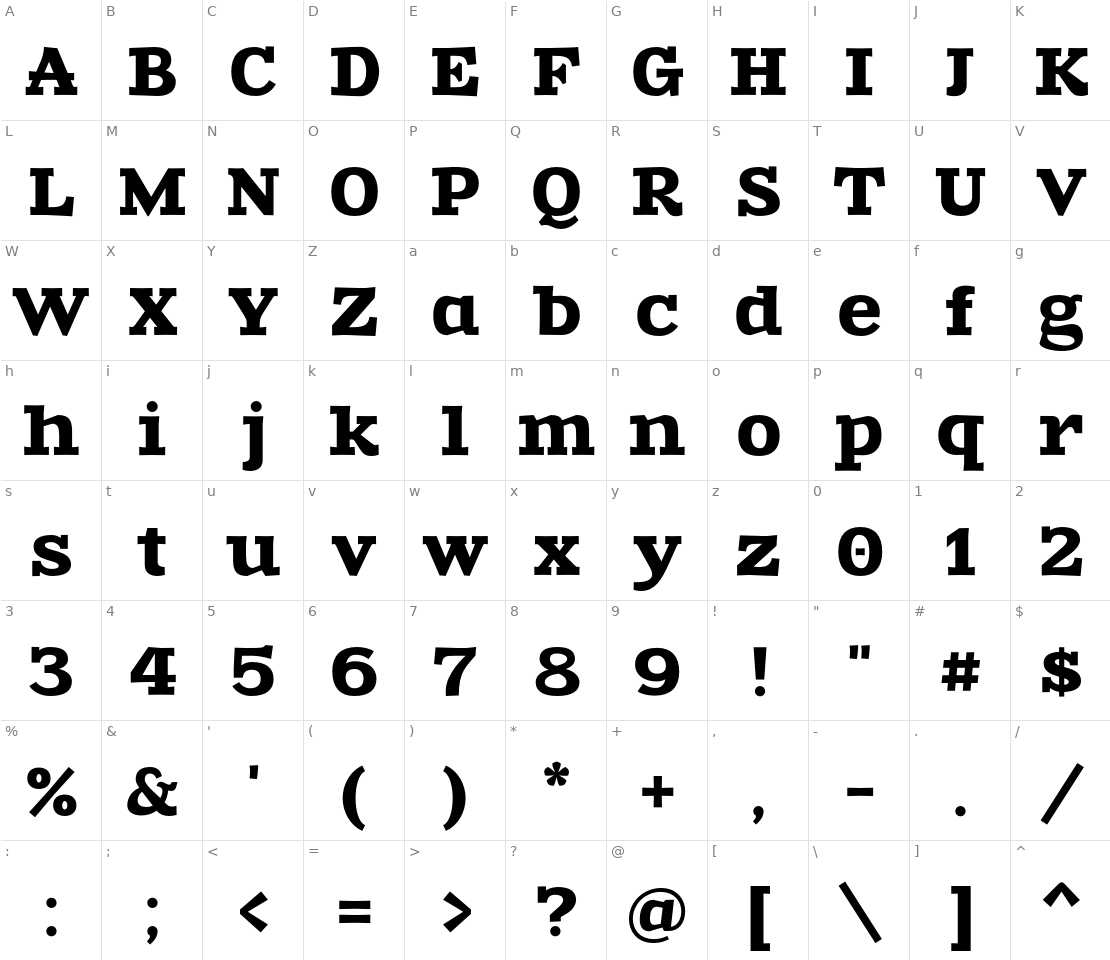
Zantroke
Zantroke is a chunky slab serif from gluk with heavy, squared-off serifs and bold letterforms that carry serious visual weight. Everything about it feels sturdy and grounded, built for headlines, posters, and display work where you need type that plants its feet and doesn't move. The proportions stay readable despite the heft, which keeps it functional even when it's being loud.